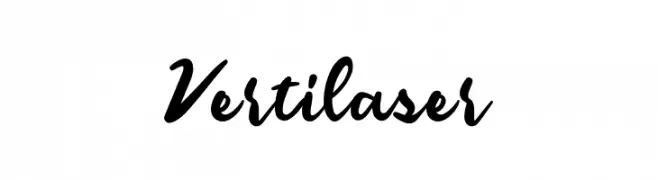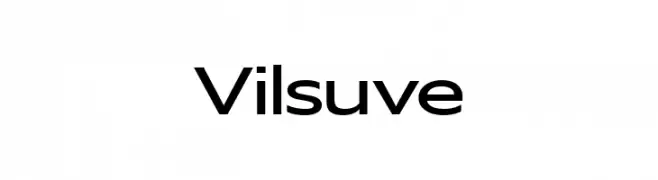
A bold, dynamic font with a three-dimensional effect and modern aesthetic.
A bold, expressive script font with a dynamic, handwritten style.
A bold, angular font with a dynamic and energetic style.
A bold, 3D extruded font with sharp, geometric angles.
A casual, handwritten-style font with smooth, flowing strokes.
A bold, geometric font with a three-dimensional, shadowed design.
A bold, 3D geometric font with a modern, futuristic style.
A playful, casual handwritten font with dynamic strokes.
A bold, distressed font with a vintage and rugged appearance.
A modern sans-serif font with clean lines and balanced proportions.